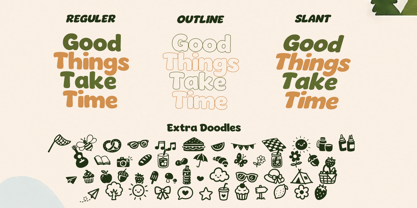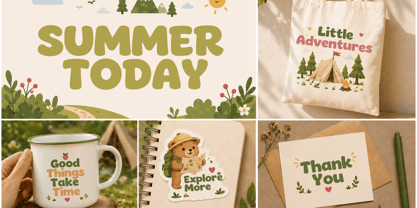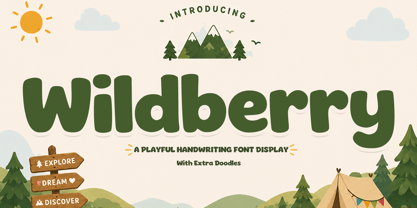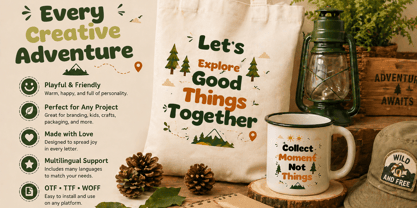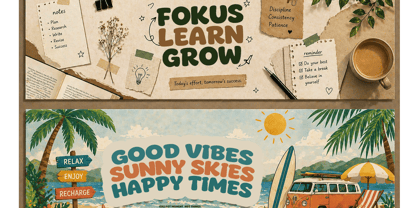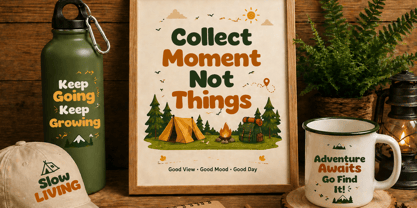
Wildberry
par Cocodesign
La famille de polices Wildberry a été conçue par Muhammad Zaini et publiée par Cocodesign. Wildberry contient 4 styles et options de package familial. En savoir plus sur cette famille
Wildberry is a playful handwriting display font designed to infuse a cheerful and friendly vibe into any creative project. With its soft, rounded letterforms and bold, approachable style, this font embodies warmth, fun, and natural charm. The smooth curves and balanced proportions ensure excellent readability while preserving a lively and expressive character. Ideal for a variety of applications, including branding, packaging, children’s products, posters, social media graphics, quotes, invitations, apparel, and more, Wildberry excels in both digital and print designs. This versatile font is perfect for projects that aim to evoke joy, freshness, and engagement. Additionally, Wildberry includes extra doodles that enhance its overall style, providing creative flexibility and enriching visual storytelling. Whether utilized as a main headline or a decorative element, Wildberry leaves a delightful and memorable impression.
Concepteurs: Muhammad Zaini
Fonderie: Cocodesign